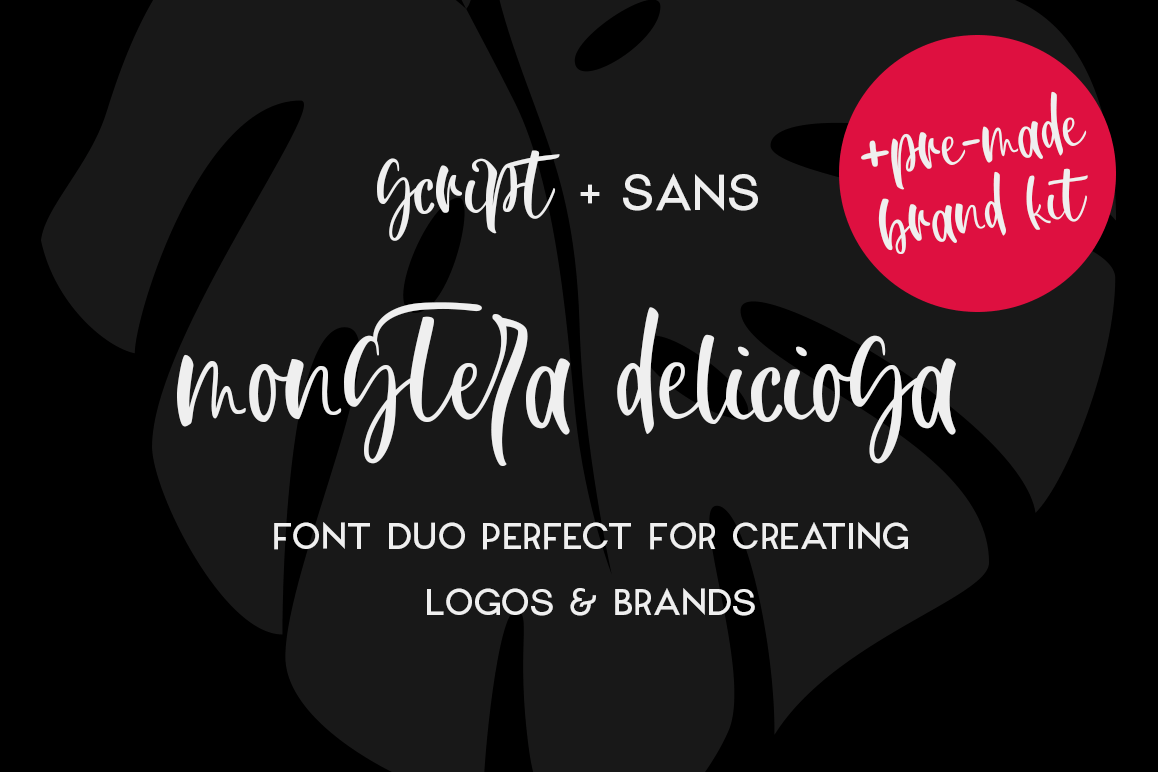
Monstera Deliciosa Font Duo
Meet Monstera Deliciosa Font Duo! A brush script with attitude and accompanying sans serif face perfect for creating logos and brands. Included is a bonus pre-made brand kit too which you can use however you like!Monstera Deliciosa is multilingual with 361 glyphs in script version (some of which are unique and super fun ligatures) and 338 glyphs in Sans version.•WHAT YOU GET•